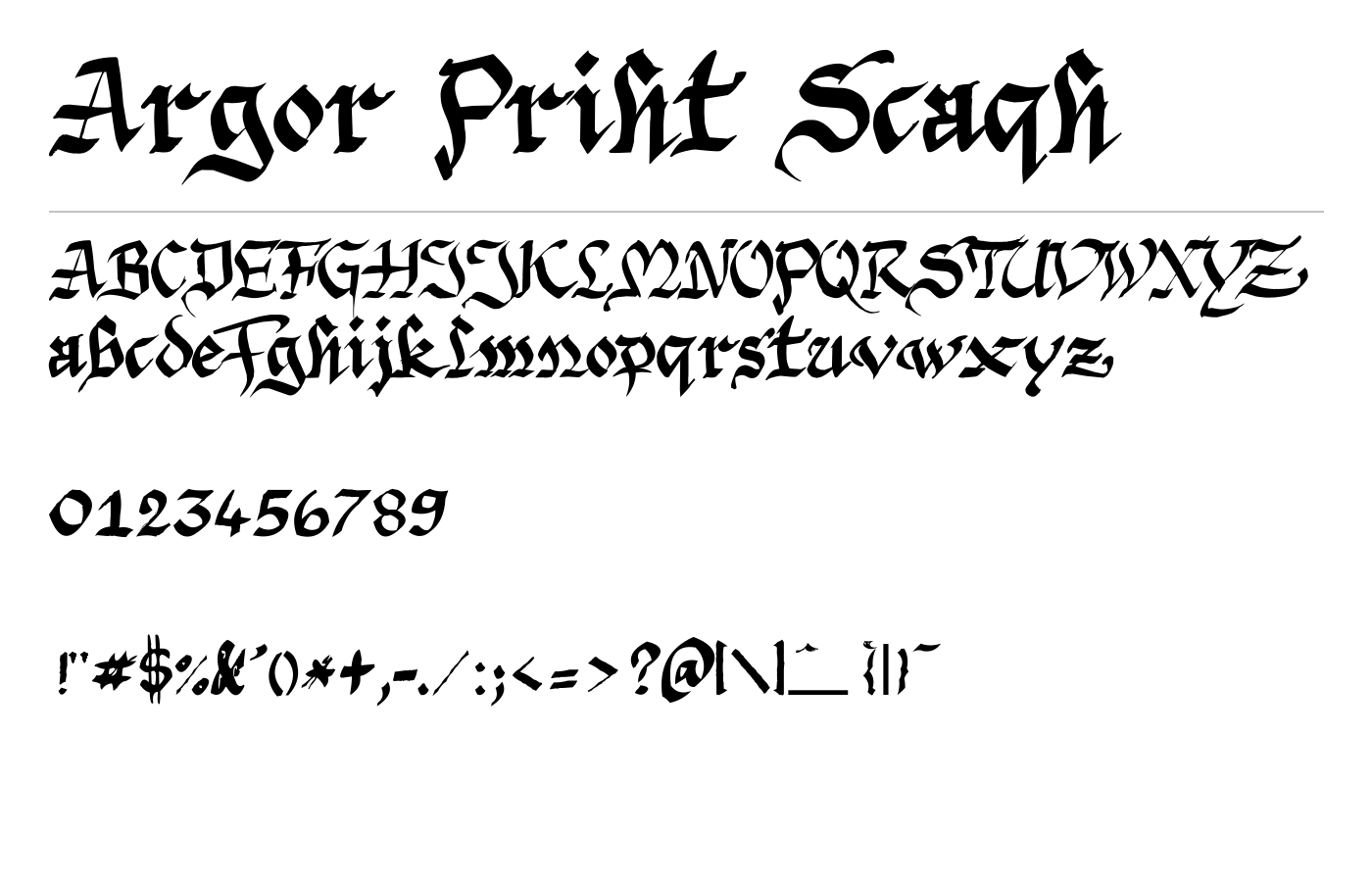
Argor Priht Scaqh is a bold, blackletter-style font that exudes a dramatic, gothic flair with its sharp, angular strokes and high contrast between thick and thin lines. Its ornate letterforms and pointed serifs evoke a medieval, vintage charm, making it ideal for use in branding or design projects that seek to convey a strong, historical, or mysterious mood. This font works especially well for headlines, logos, and decorative display where an eye-catching, traditional yet intense aesthetic is desired.
Argor Priht Scaqh Font
About Argor Priht Scaqh Font